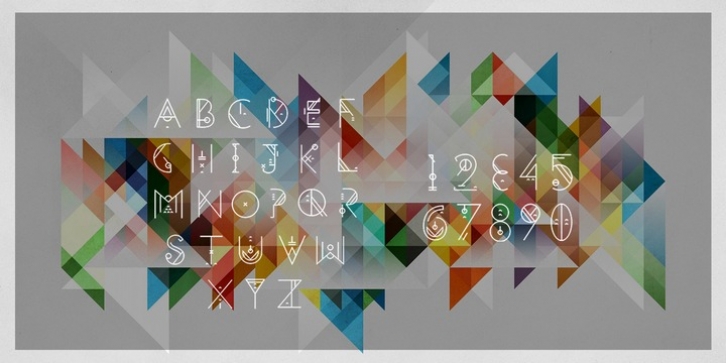
One day I was sitting in front of my computer and wanted to start a new Photoshop project, but I was missing a font. A font that is stylish, modern, clean and fits almost every occasion. Then I got the idea, I just develop my own font. Said done, I got down to work. I had great fun developing the complex structures of letters and numbers as well as symbols. Day after day, I sat at the project, watching as it evolved and the individual letters merge into a font. Then at some point the day came when the last symbol evolved. I was very happy and very happy to finally see my own font in front of me. In addition, I was even happier to have finally found a suitable font for my Photoshop Project.